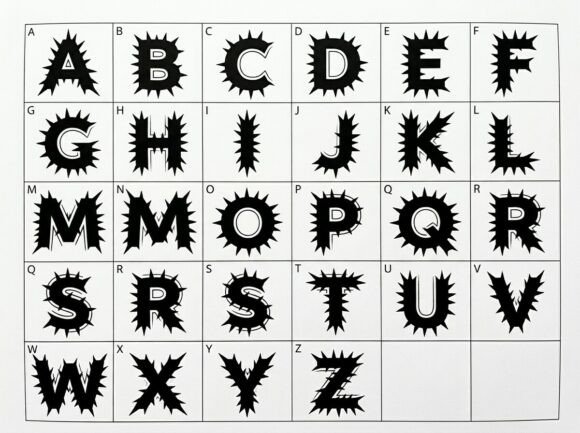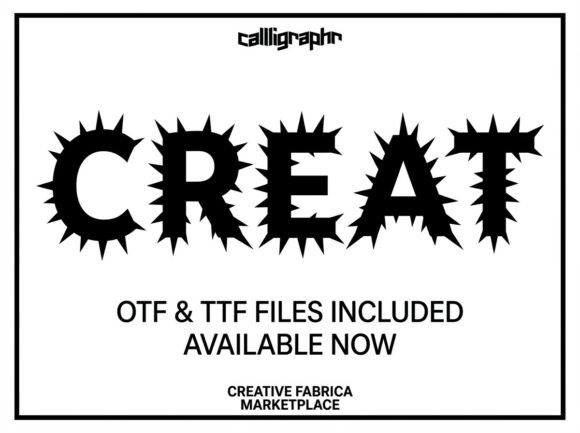
Introduction to Creat Font
Command attention with Creat, a high-definition display font that balances aggressive geometry with a cosmic edge.
Aptly named โThe Thorn Font,โ this typeface features bold, blocky letterforms entirely encased in sharp, rhythmic spikes Its jagged silhouette and heavy visual weight evoke a sense of unyielding protection and supernatural energy, making it an extraordinary choice for sci-fi book titles, heavy metal branding, edgy streetwear logos, and high-impact gaming headers.